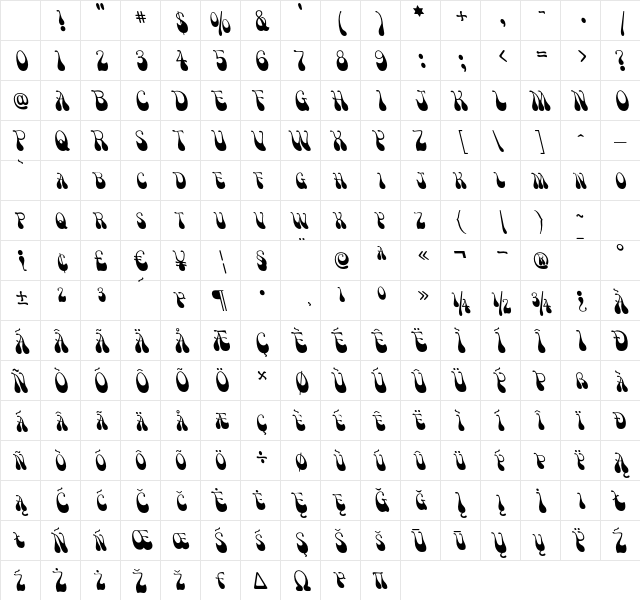
Complete Victor Moscoso Regular glyph index. Displaying only characters natively supported by Victor Moscoso Regular font.
Victor Moscoso is a composed and adaptable typeface that performs quietly and consistently across a wide range of design contexts.